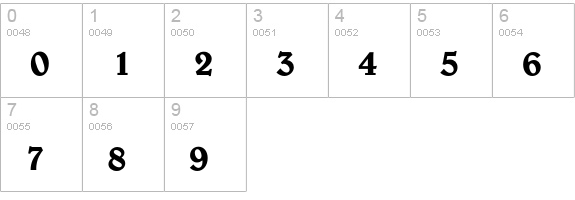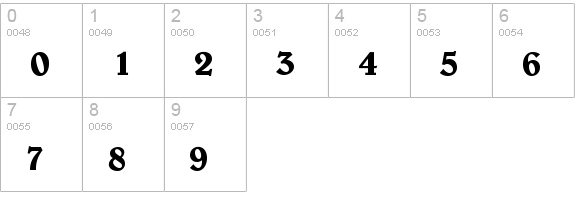
BelweEF-Medium is a balanced, medium-weight variant in the BelweEF typeface family \xE2\x80\x94 well suited to sub-headlines, navigation, and balanced editorial work.
BelweEF-Medium is a sophisticated and elegant font that exudes a sense of timeless beauty. With its classic serif design and medium weight, this font is perfect for creating stylish and refined designs. The clean lines and balanced proportions of BelweEF-Medium make it versatile for a wide range of projects, from branding and advertising to packaging and editorial design. What sets BelweEF-Medium apart is that it is freely available to download at FontsMarket.com. This means that you can easily access this high-quality font without any cost, making it a valuable addition to your font library. Whether you are a seasoned designer or just starting out, BelweEF-Medium offers a touch of sophistication and professionalism to your creative projects. Elevate your designs with the timeless beauty of BelweEF-Medium font today.